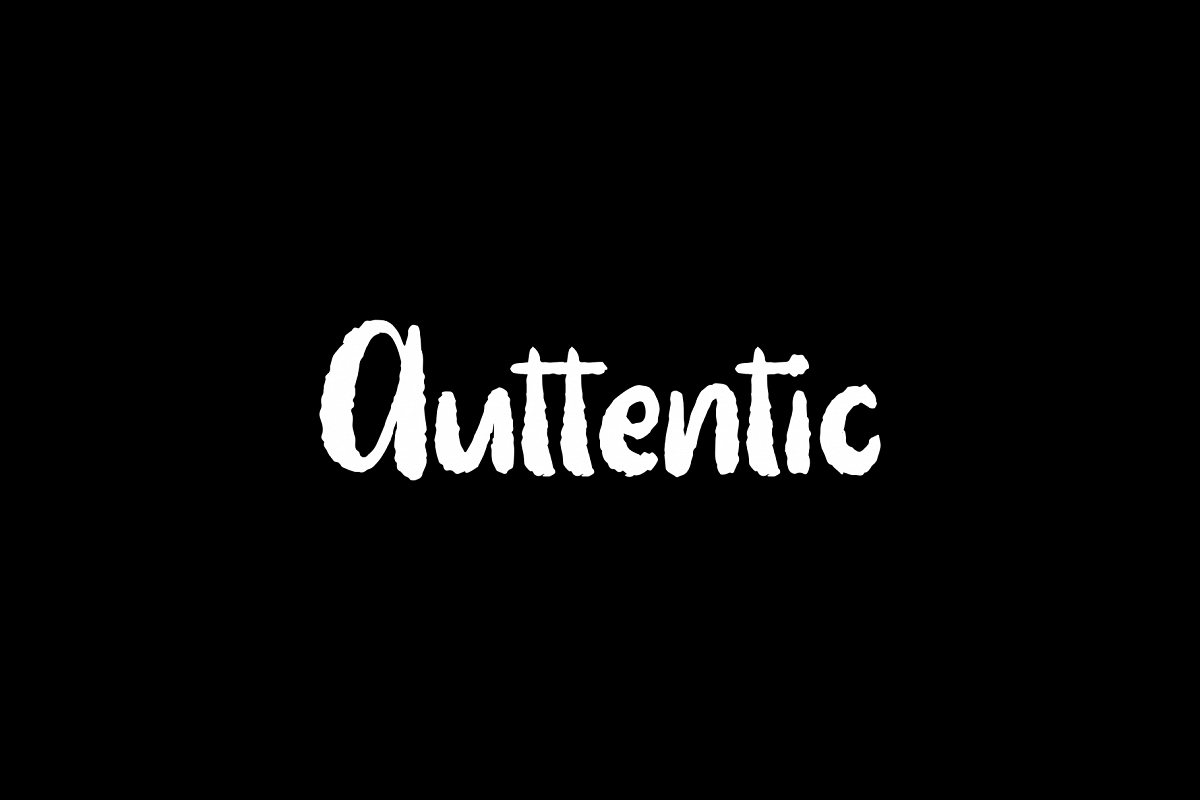
AUTTENTIC
Introducing AUTTENTIC fontGive your designs an AUTTENTIC and artistic. AUTTENTIC is perfectly suited to signature, stationery, logo, typography quotes, magazine or book cover, website header, flyer, clothing, branding, packaging design and more.This font available: